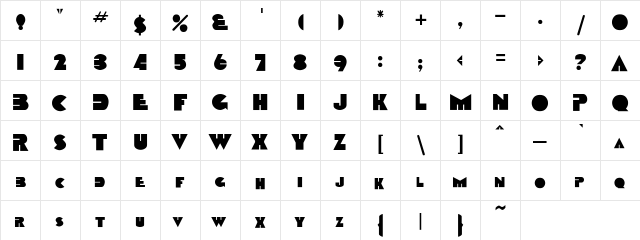
Sharptools Regular Font Preview
Sharptools Regular
Design Context for Sharptools Typeface
Sharptools is a composed and adaptable typeface that performs quietly and consistently across a wide range of design contexts.